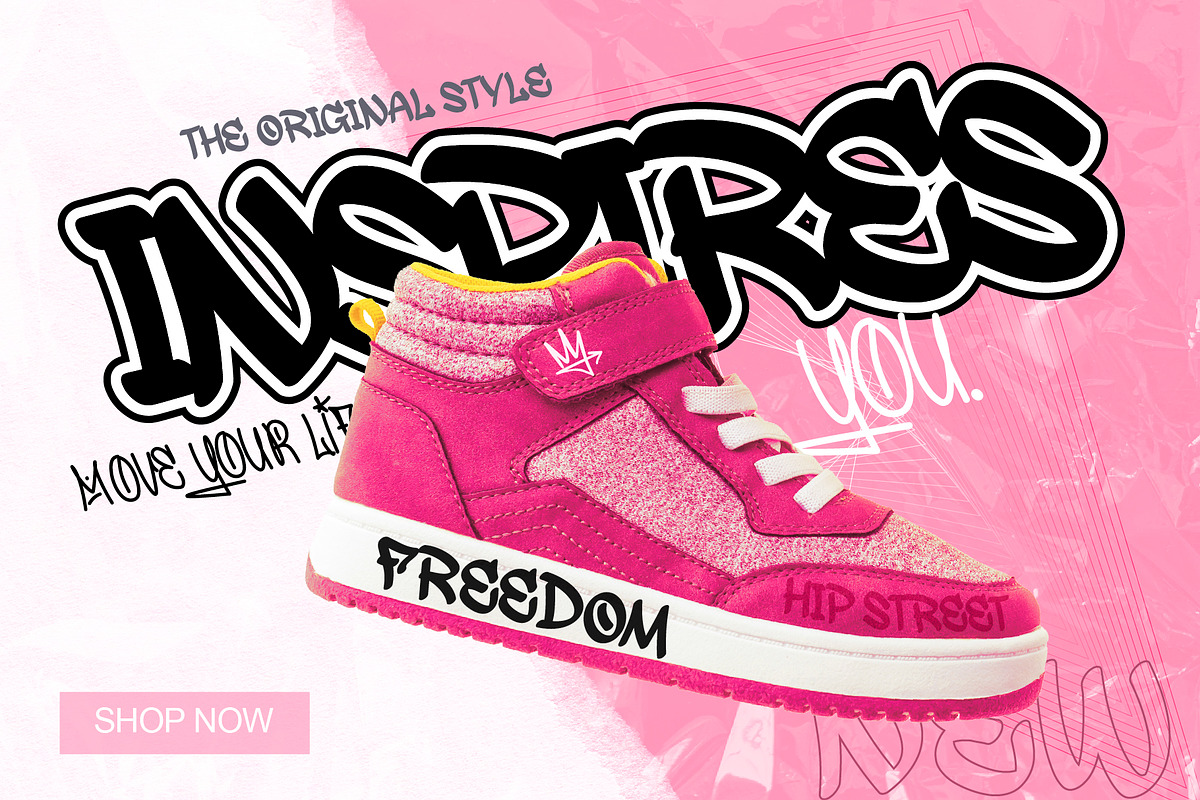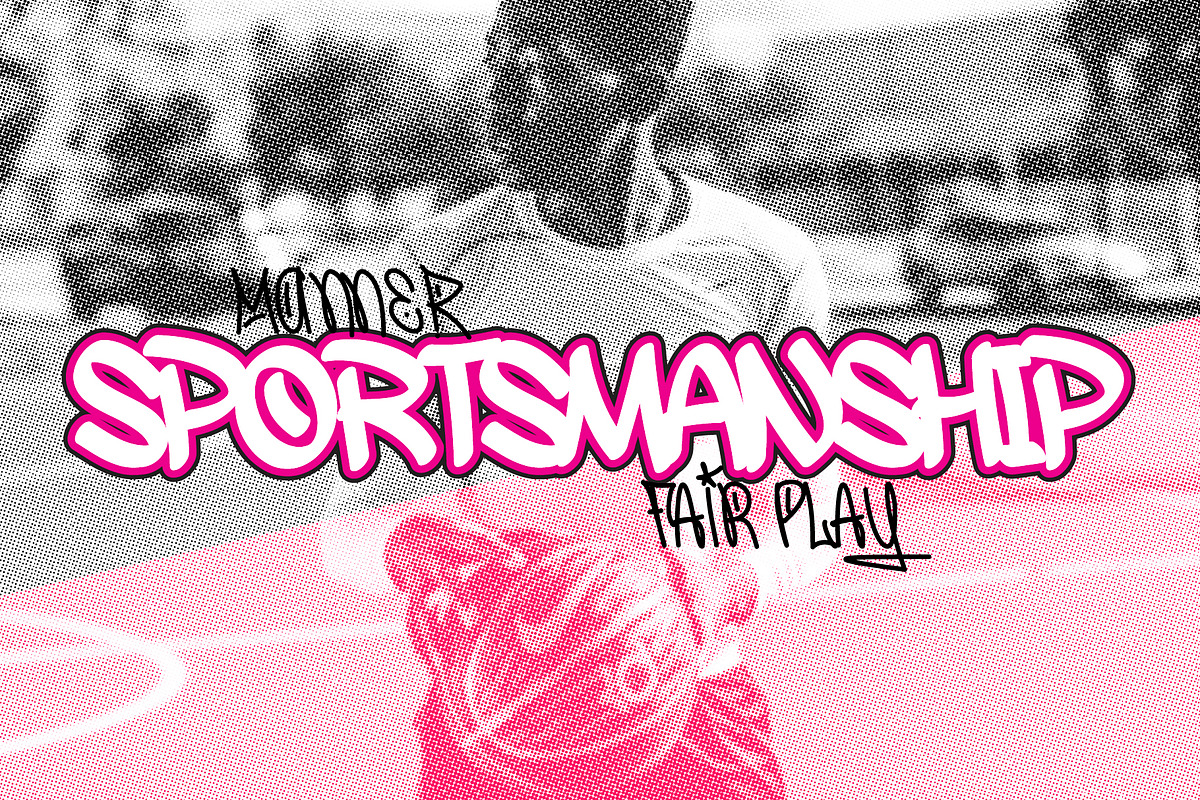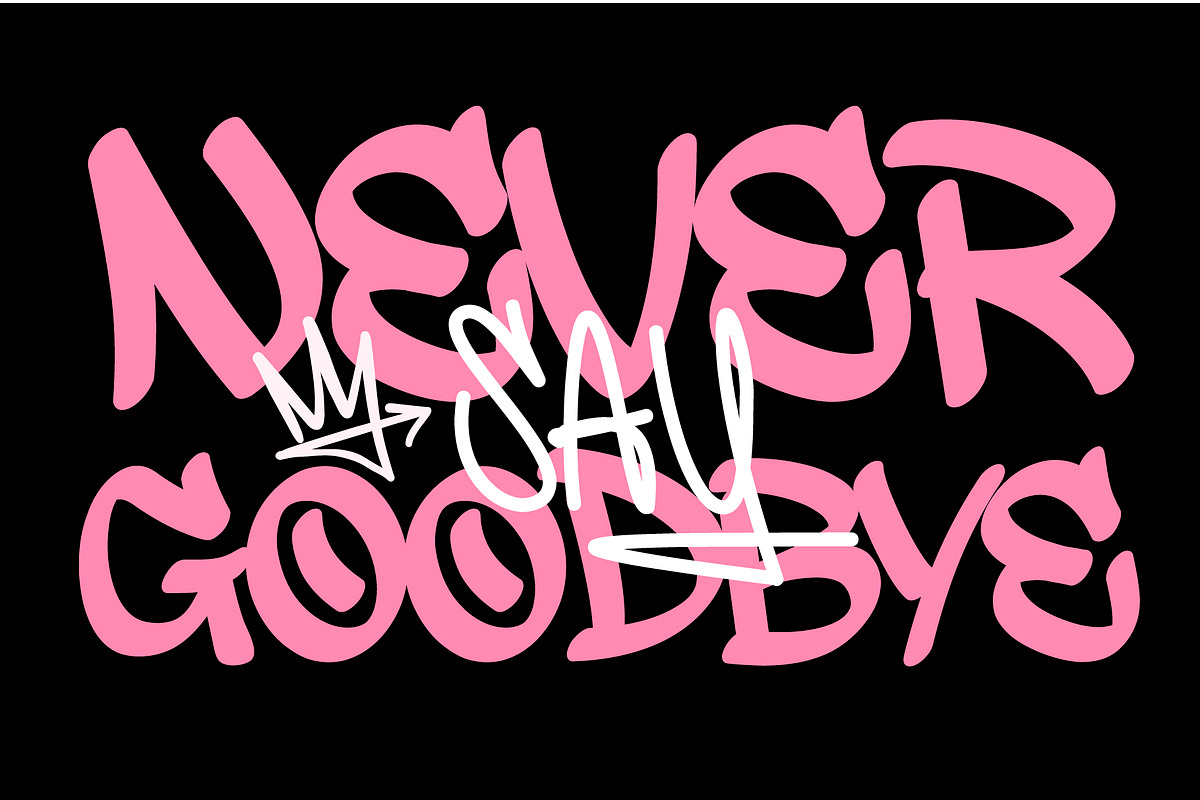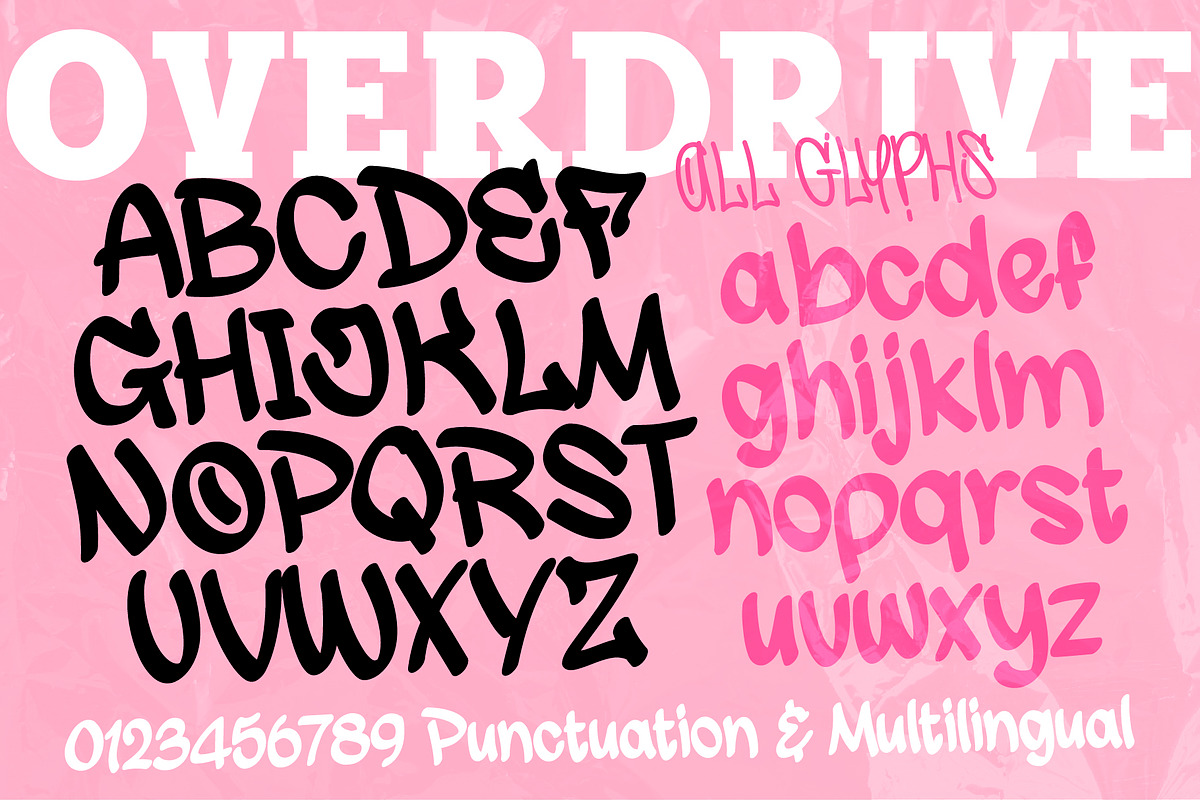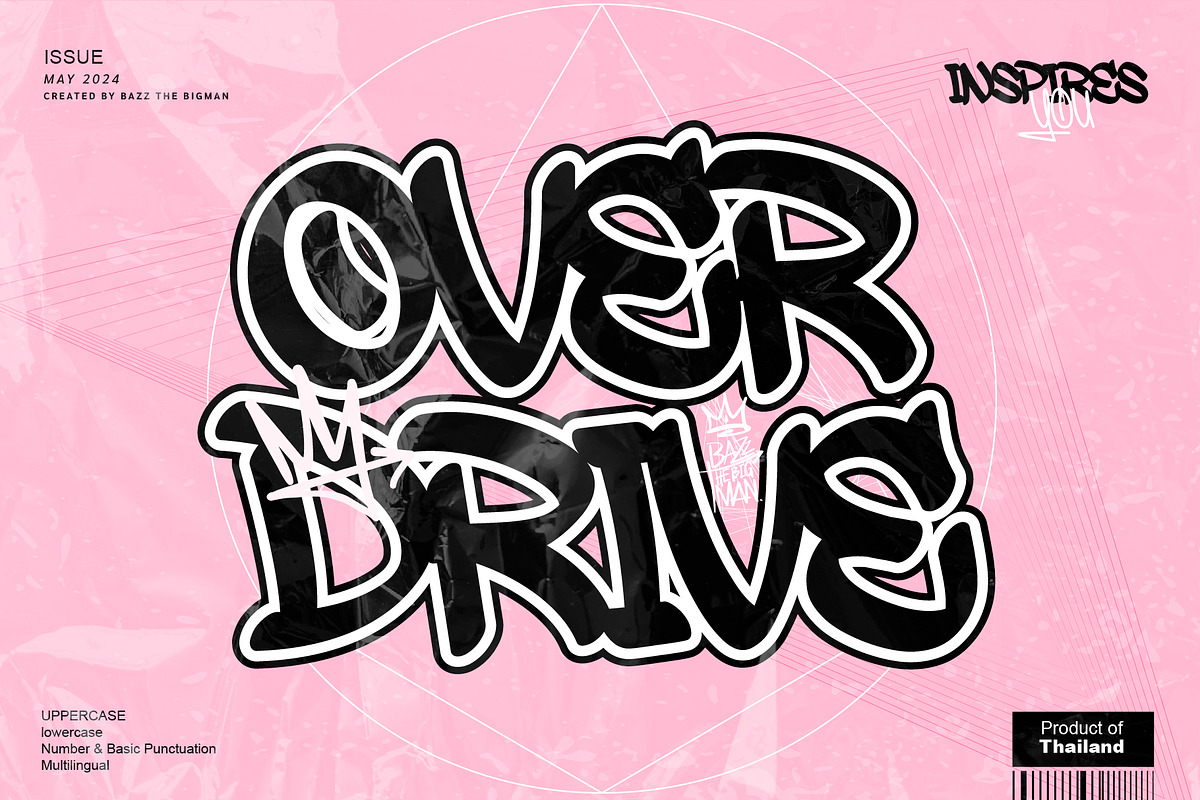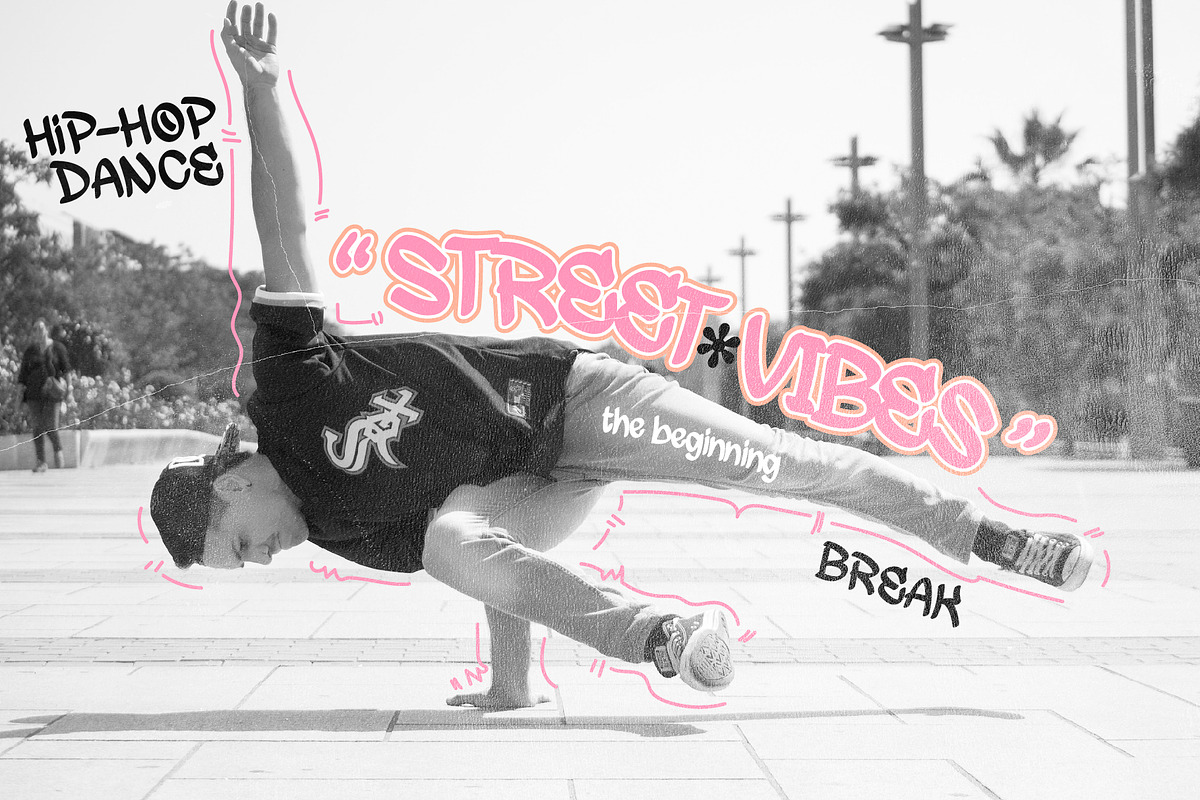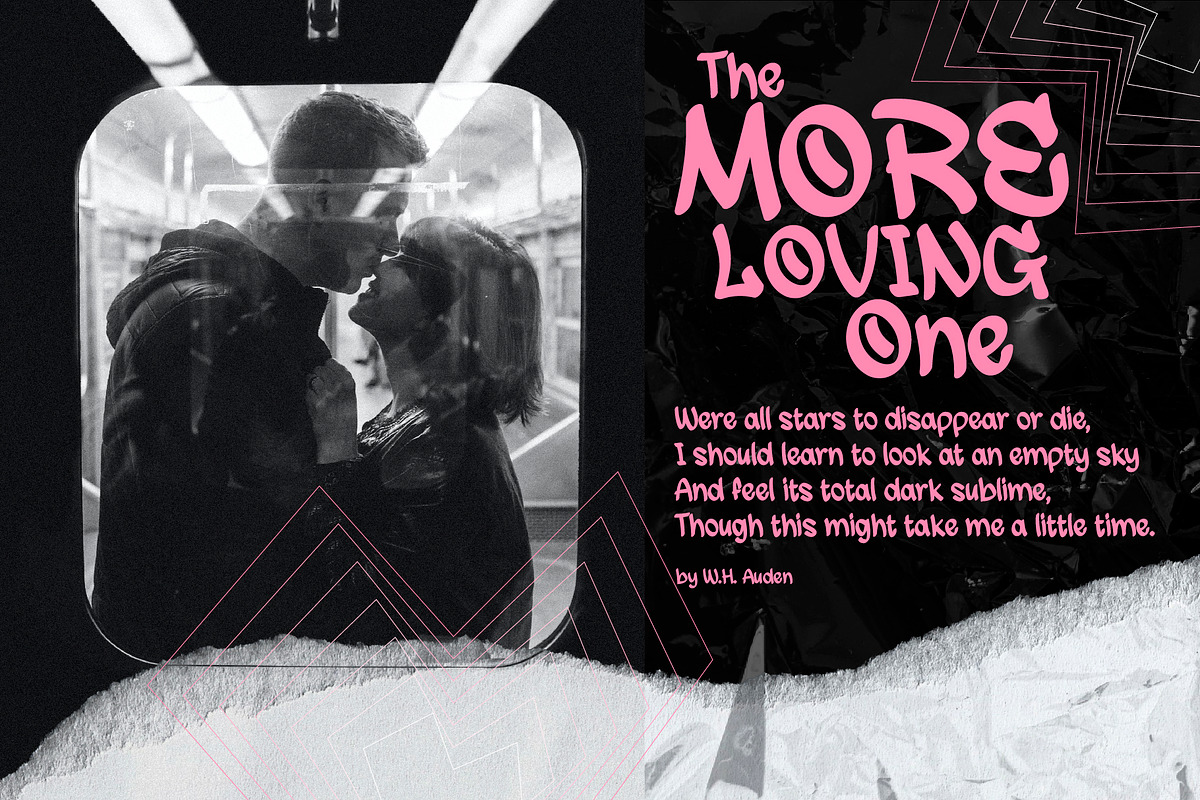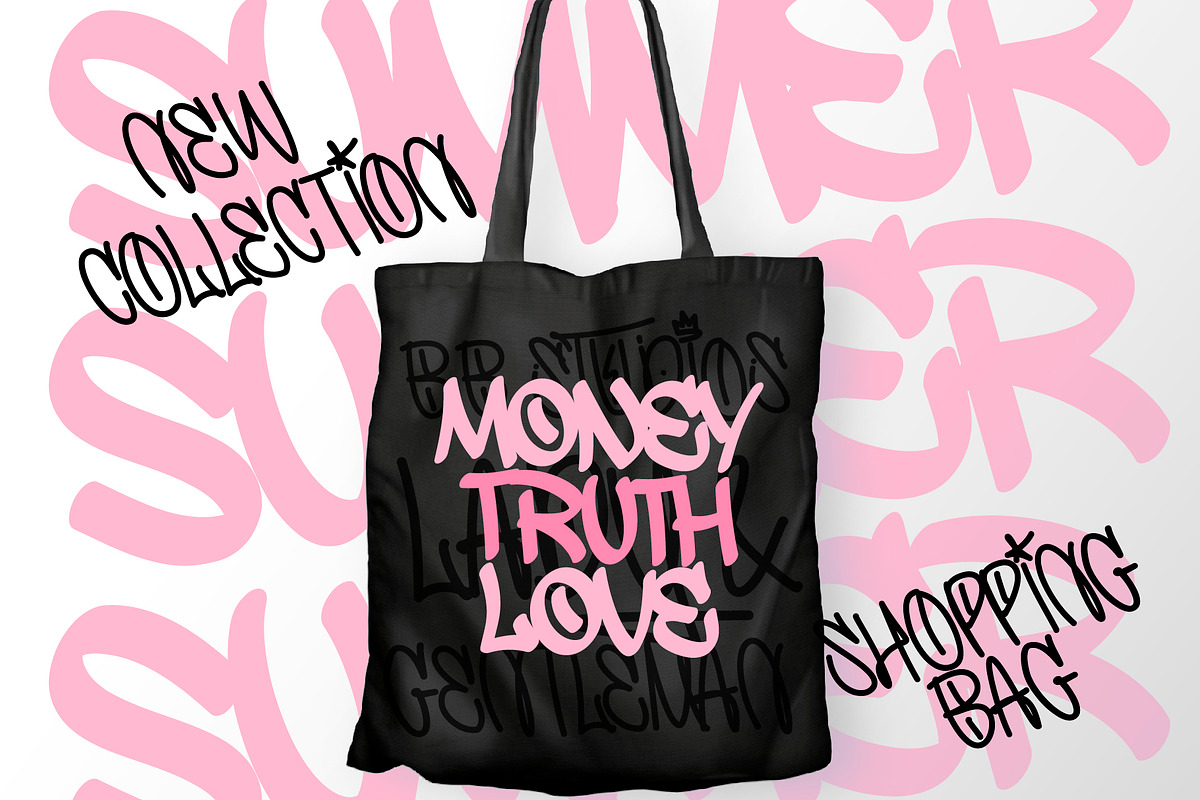
Overdrive
Immerse your designs in the bold, urban world with Overdrive, a daring fusion of traditional blackletter and bold graffiti style. With a vibe radiating with street-art energy, this font transcends norms, making it a perfect complement for creations such as logos, T-shirts, book covers, and posters. It is the essence of streetwear and skate culture, fluent in the language of sports gear and daring skateboard graphics, infusing an audacious spirit in all your designs. Overdrive, where typography meets rebellion.